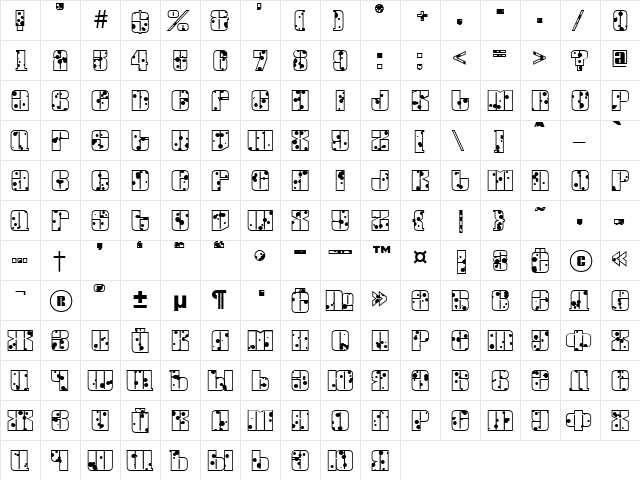
a_GlobusInkBlots Regular
Design Context for a_GlobusInkBlots Typeface
a_GlobusInkBlots is a composed and adaptable typeface that performs quietly and consistently across a wide range of design contexts.